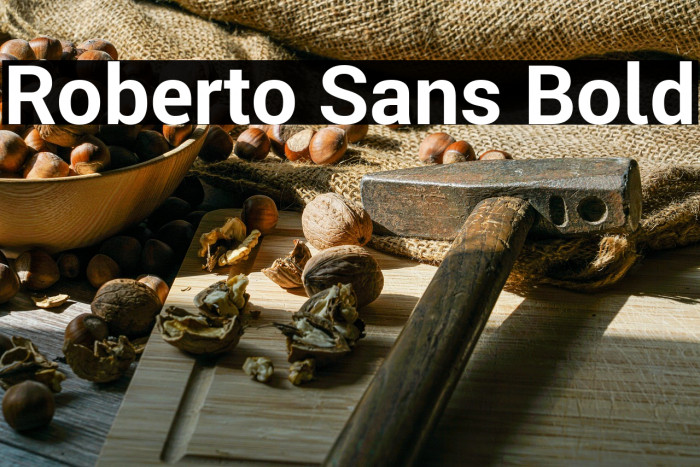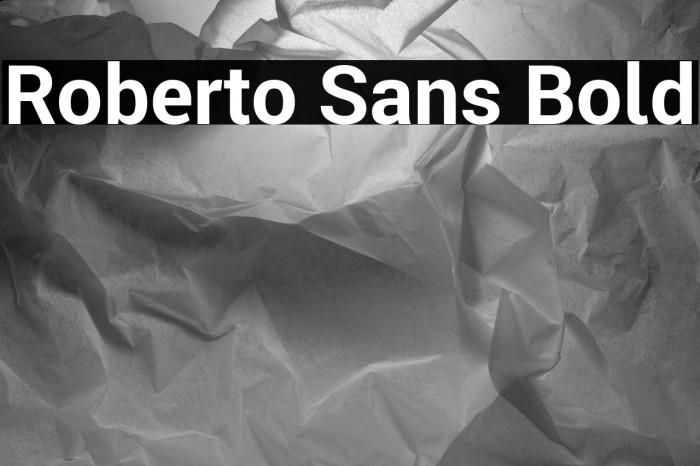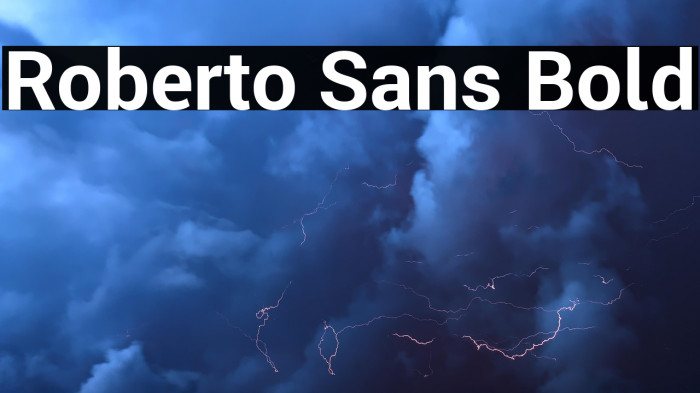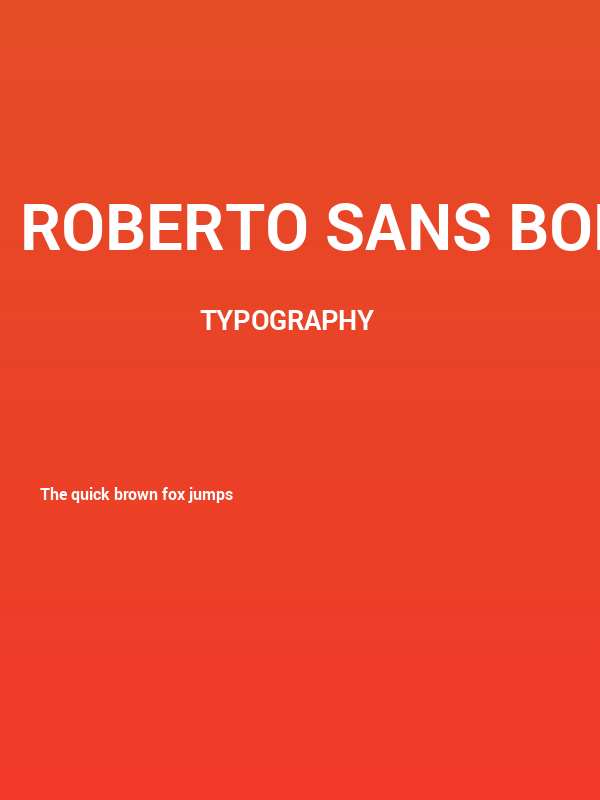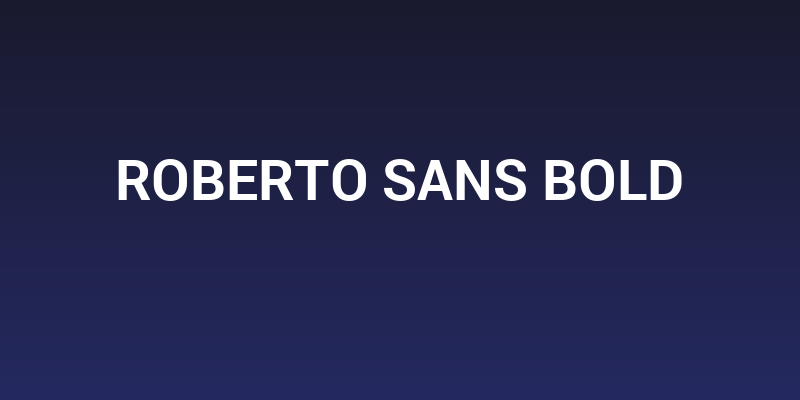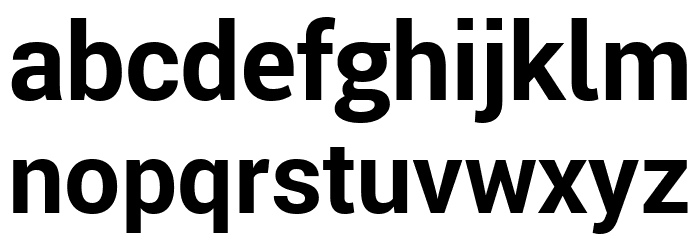
Roberto Sans Bold Font
Roberto Sans Bold Description
This font is a bold, sans-serif typeface characterized by its clean and modern appearance. The letters are uniform in weight, providing a strong and assertive presence. The uppercase and lowercase letters are well-proportioned, with a consistent stroke width that enhances readability. The numerals are clear and distinct, making them suitable for various applications. Special characters are included, maintaining the font's cohesive style. The overall design is versatile, suitable for both digital and print media, offering a contemporary look that can be used in a wide range of design projects.
| Proposed Projects | Ideal for branding, advertising, headlines, and digital content where a modern and bold statement is needed. |